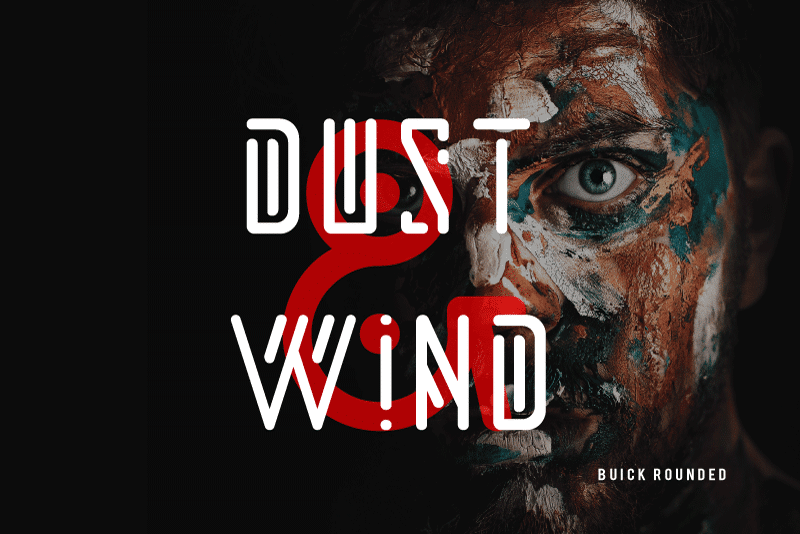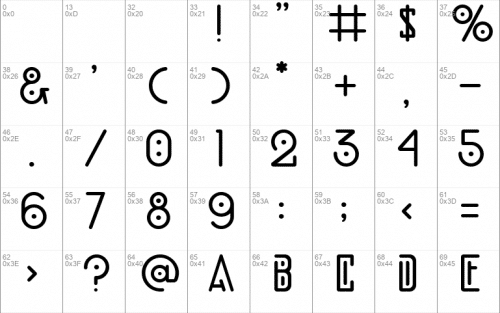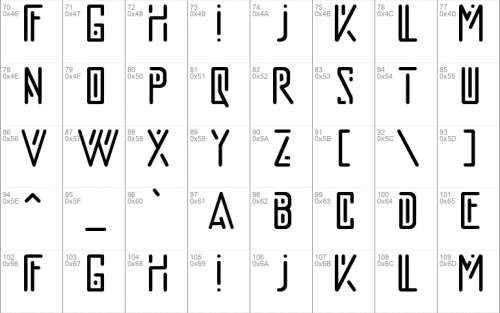
Buick Rounded Font is Ethnic, Futuristic and Bold, Buick is a modern unique font family. Strong uppercase.
The geometric, shows assertiveness in the form of fonts, accompanied by uniqueness in its form. Very suitable for inclusion in sci fi, ethnic & modern themes.